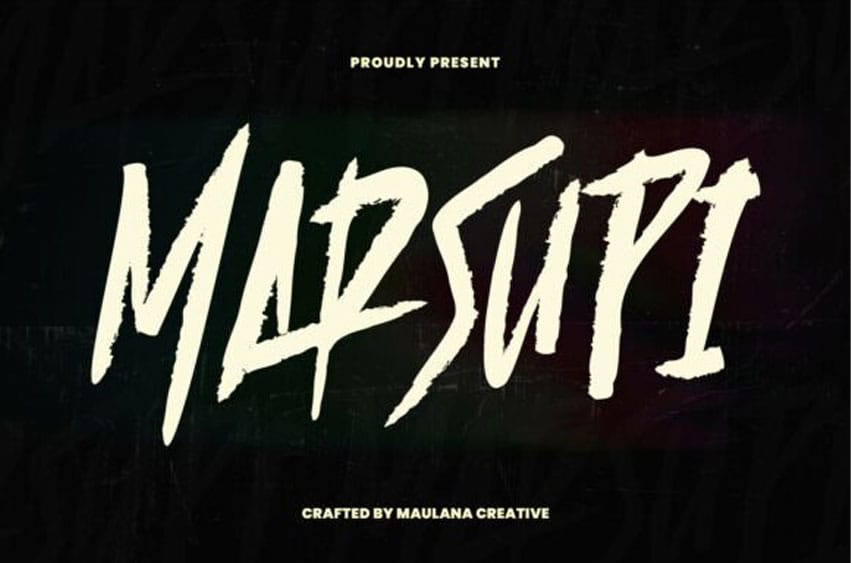
Marsupi Font Brush Display Font bursts with raw energy and bold character, crafted to look as though it was painted with quick, confident strokes across a canvas. Its jagged edges, uneven textures, and sharp angles capture the grit and intensity of hand-drawn lettering, giving it a dynamic personality that feels alive with movement.
Each letter carries a sense of urgency and attitude, with tall, narrow proportions that stretch upward like a shout frozen in ink.
The imperfect brush textures bring authenticity and a rebellious edge, making Marsupi a perfect choice for posters, album covers, streetwear branding, or any project that calls for fearless expression. This is a font that doesn’t whisper—it commands attention with every mark.